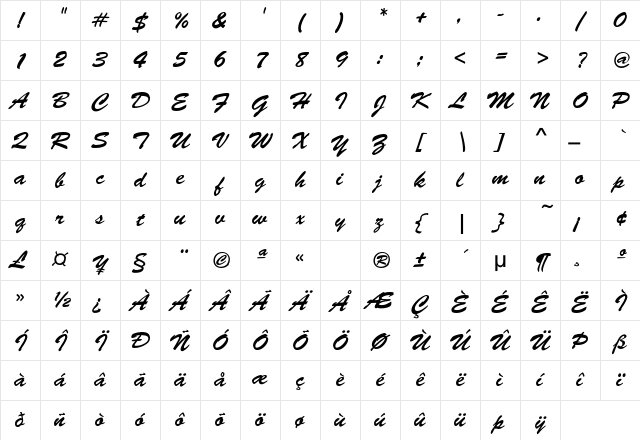
Design Context for Adolph -Normal-Italic
Adolph -Normal-Italic is a composed and adaptable typeface that performs quietly and consistently across a wide range of design contexts. The slanted form adds forward momentum and visual energy.
Pro Tip: Use Adolph -Normal-Italic for emphasis, pull quotes, and subheadings where its slanted energy can add rhythm to the layout.